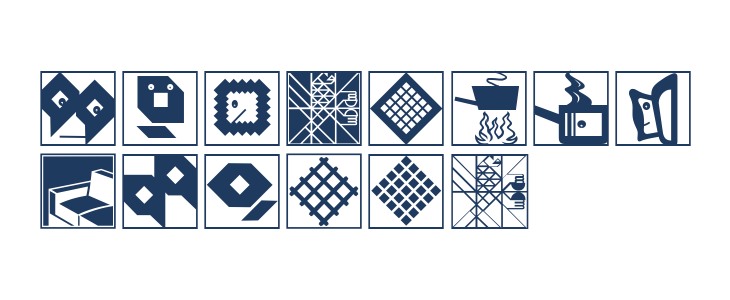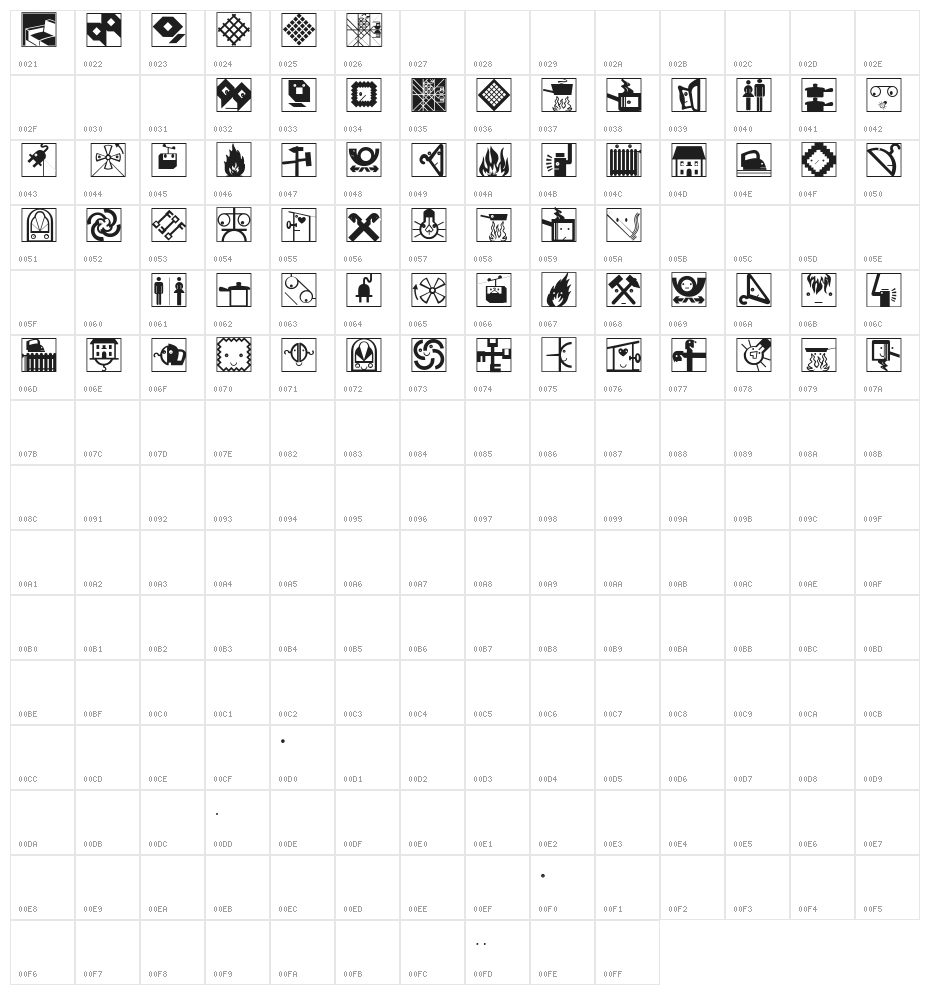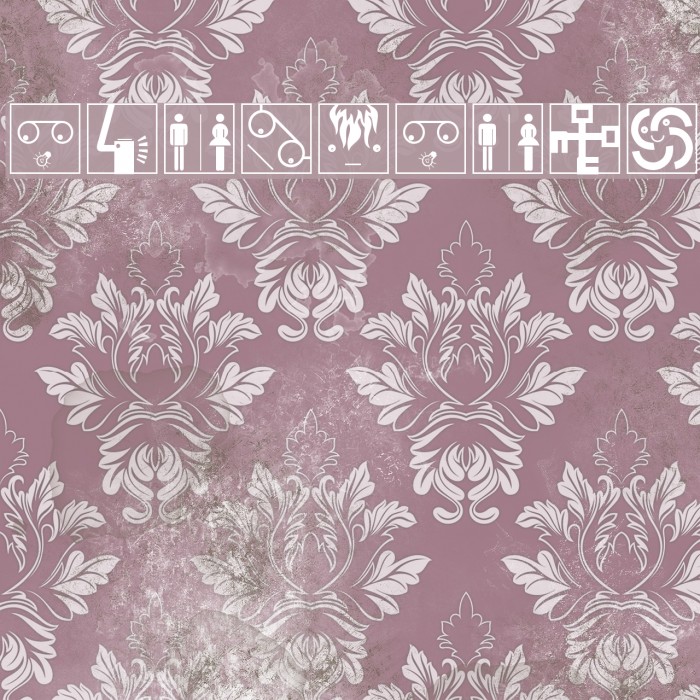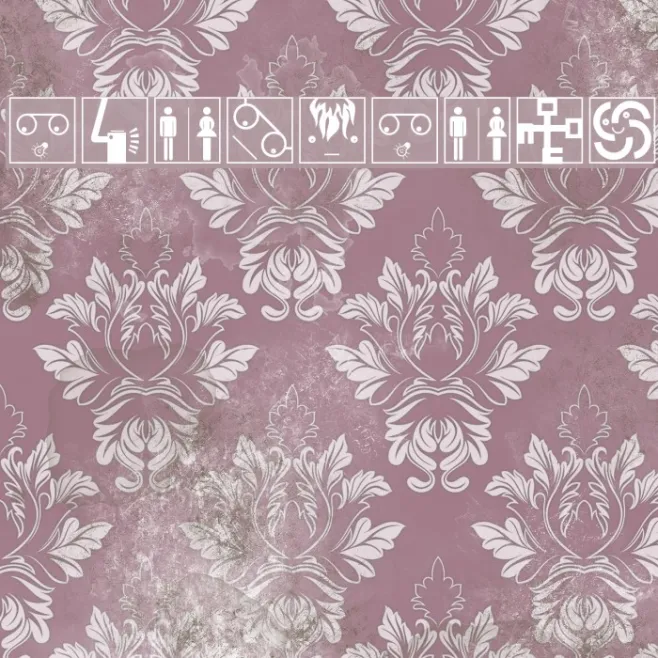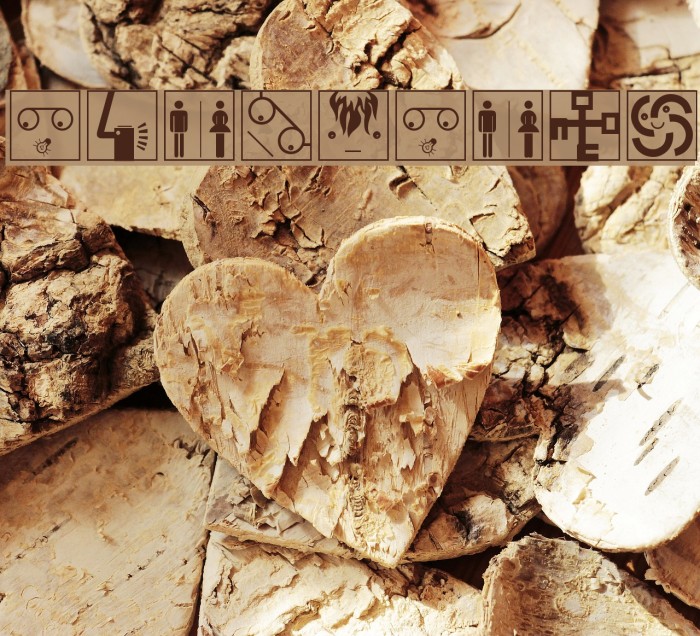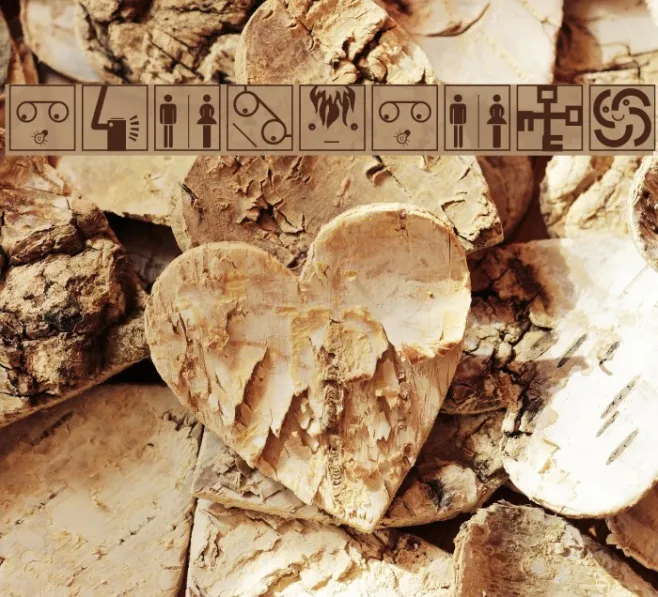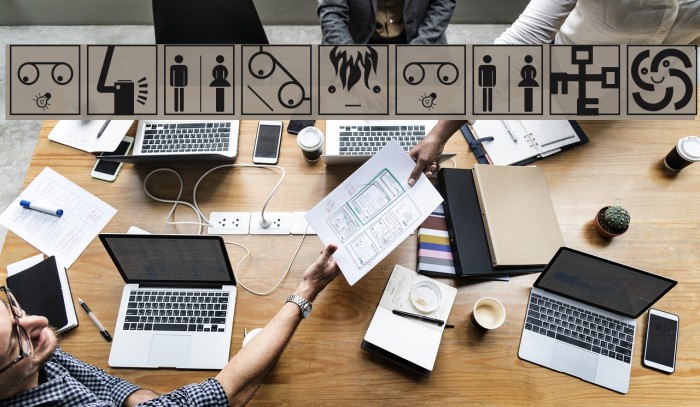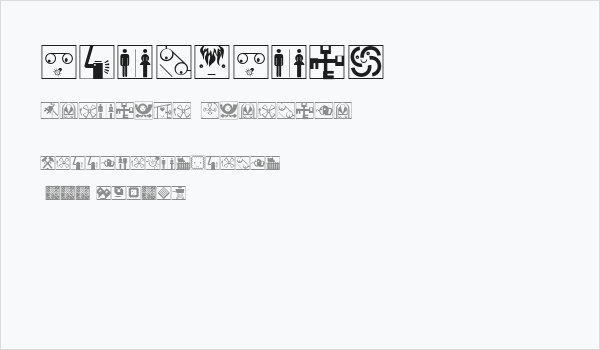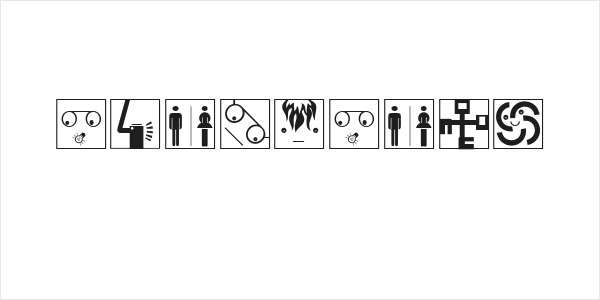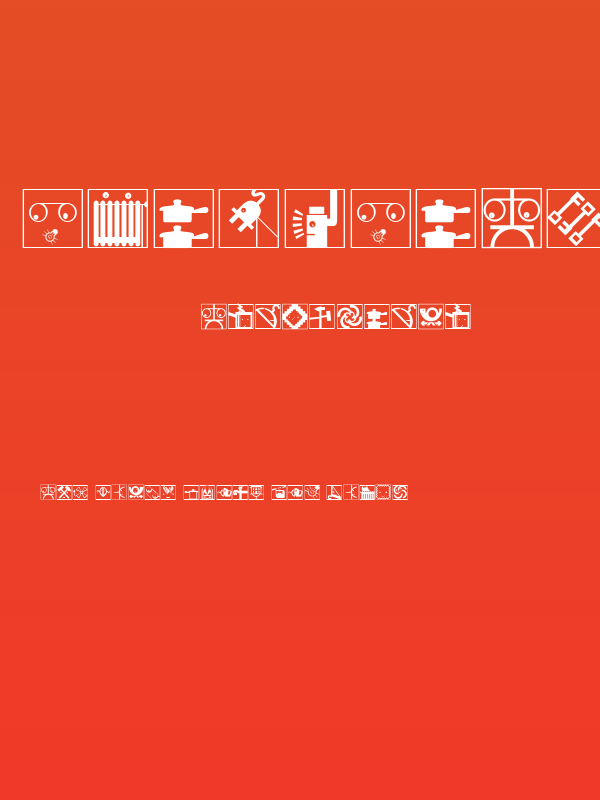
BlackBats Font
BlackBats Description
This collection features a series of bold, graphic symbols that are highly stylized and abstract. Each character is a unique illustration, ranging from geometric shapes to intricate patterns and whimsical designs. The symbols are rendered in solid black, providing a stark contrast against any background. The overall aesthetic is playful yet sophisticated, making it suitable for creative and artistic projects. The characters are evenly spaced within their bounding boxes, ensuring a consistent appearance across the set.
| Use Case | Logos, Posters, Creative Artwork |
| Proposed Projects | Ideal for use in branding, logo design, posters, and creative digital artwork where a unique and artistic touch is desired. |